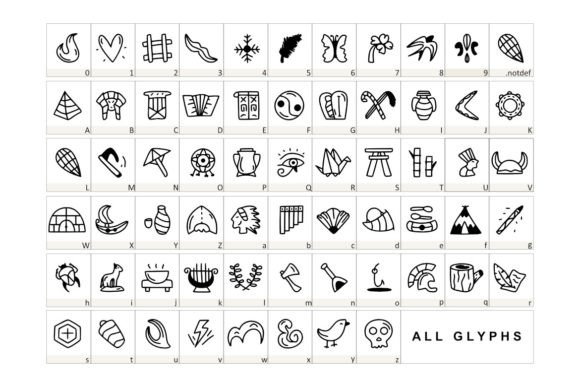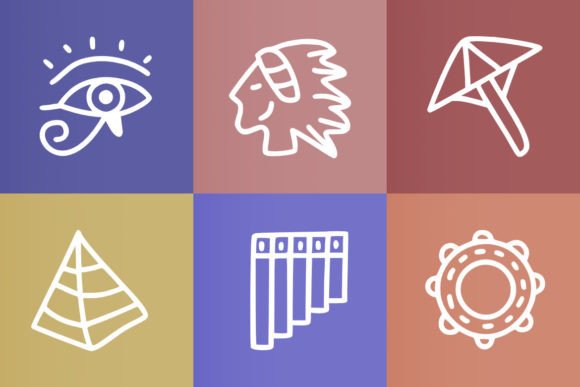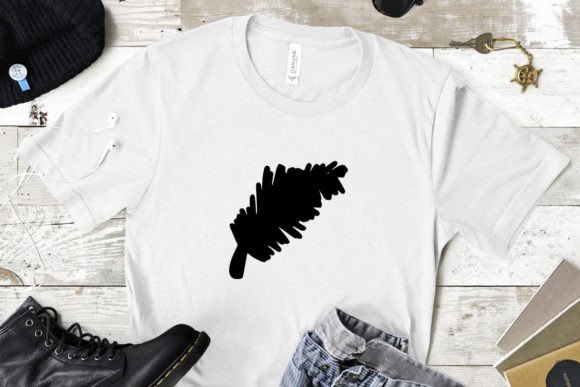
The Ultimate Design Companion: Culture Font
Culture Font has been a revelation for my design projects, and I’m excited to share my honest review with you. Here’s what I love about it:
- ✨ Cute and playful design: Culture Font is perfect for creating visually appealing graphics that are both fun and engaging.
- ✅ Versatile: This font is suitable for a wide range of projects, from stickers and posters to t-shirts and cards.
Of course, no font is perfect, and there are a few small quirks to be aware of:
- 🤔 Limited character set: As a dingbats font, Culture Font has a limited character set, which may not be suitable for projects that require a wide range of text.
- ⚠️ May not work well with small text sizes: Due to its playful design, Culture Font may not be legible at very small text sizes.
Culture Font comes with a range of OpenType features, glyphs, and stylistic alternates that can help you take your designs to the next level. Here are a few tips for accessing and using these features:
- Experiment with different stylistic alternates to add visual interest to your design.
- Use OpenType features, such as ligatures and swashes, to add a touch of elegance to your design.
The Backstory Behind Culture Font
Culture Font was designed by a team of creatives who wanted to create a font that was both fun and functional. Inspired by the world of dingbats and glyphs, they set out to create a font that would be perfect for a wide range of design projects. With its cute and playful design, Culture Font has quickly become a favorite among designers and crafters.
| What is Culture Font? | Culture Font is a cute and useful dingbats font perfect for a wide variety of projects. |
| What can I use Culture Font for? | You can use Culture Font for stickers, posters, t-shirts, cards, apparel graphics, and more. |